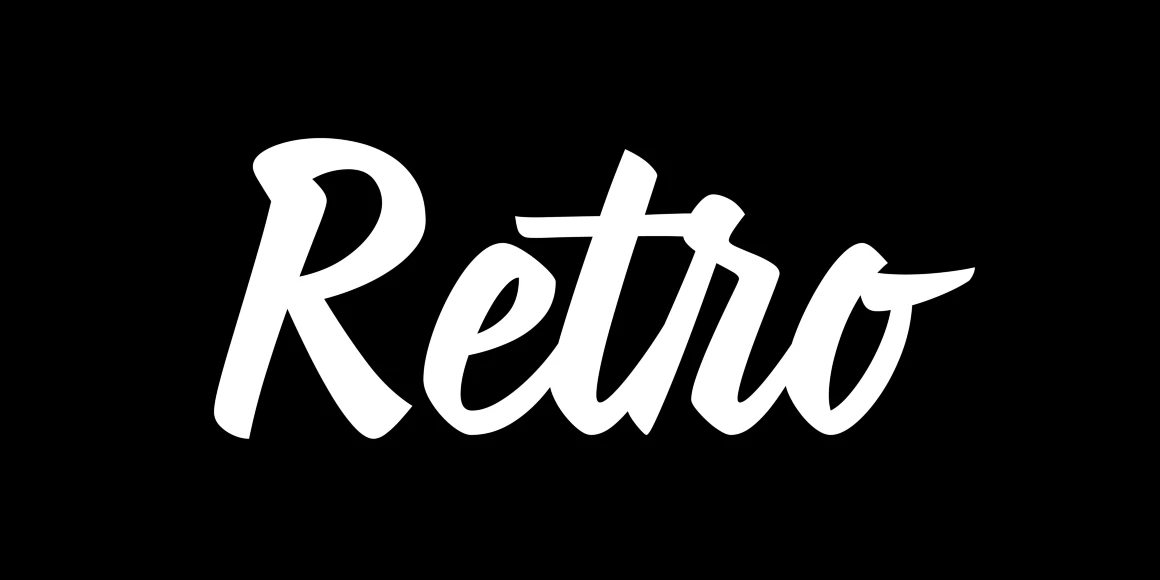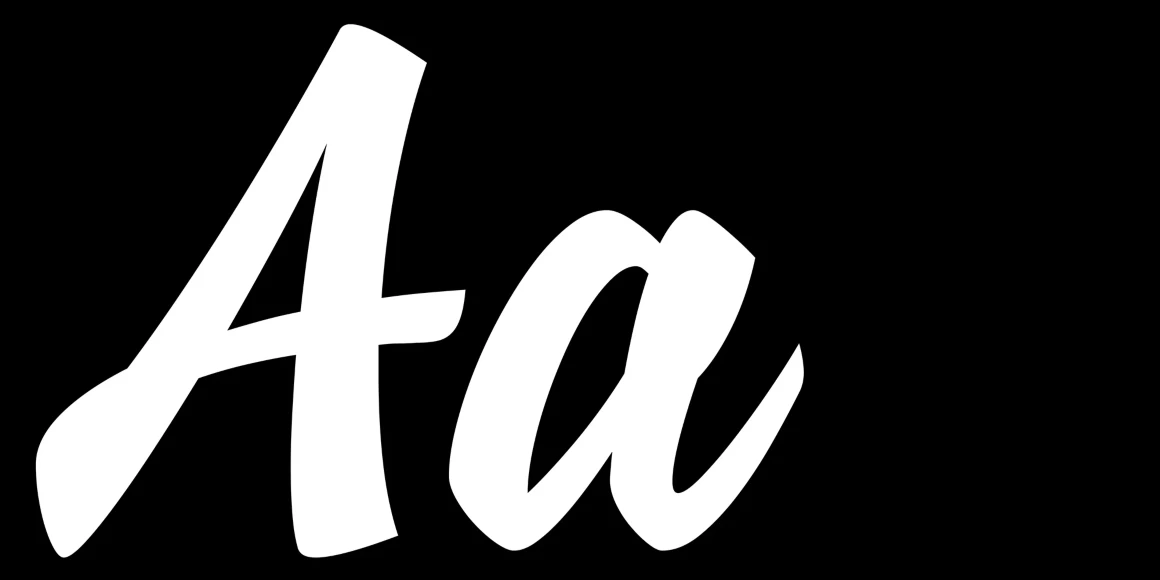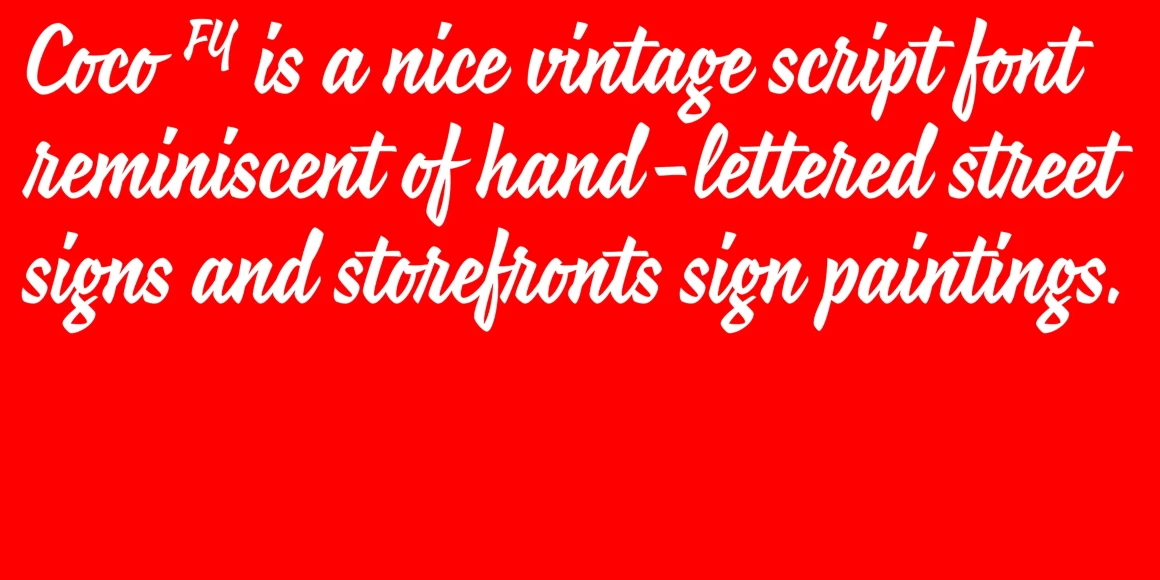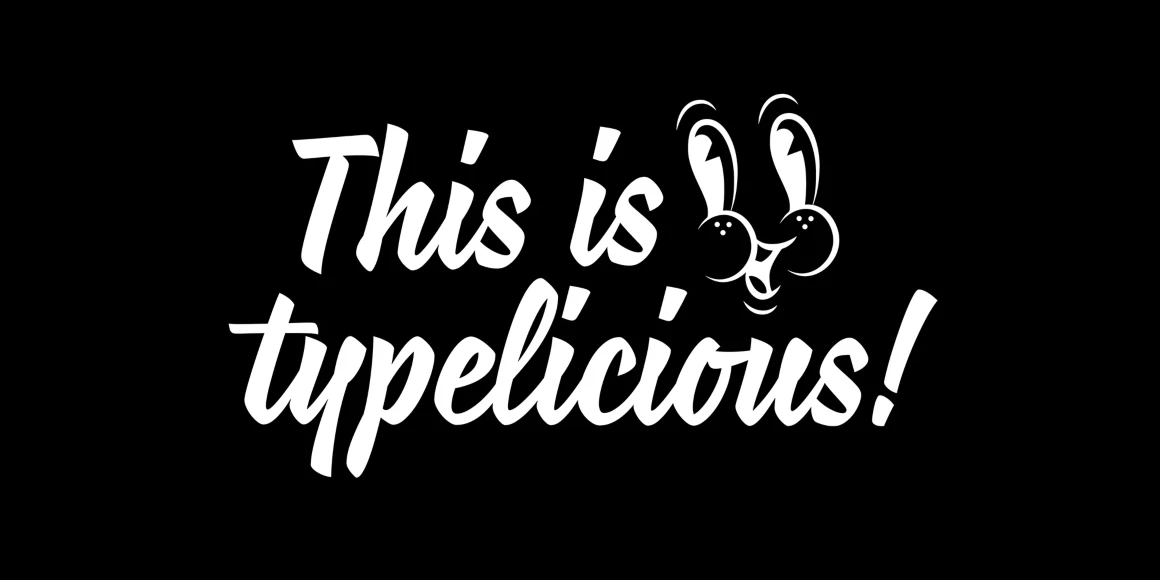
Coco
By Bertrand Reguron, Gia Tran & FONTYOU
Coco Regular
Coco FY is a vintage script font reminiscent of storefront fascia and other hand-lettered street signs. With highly expressive, condensed forms, it has a retro style that adds original character and charm to designs. Suited for posters, packaging, and branding, it is also a great choice for editorial projects seeking a touch of retro panache, offering designers a versatile script with timeless appeal and personality.